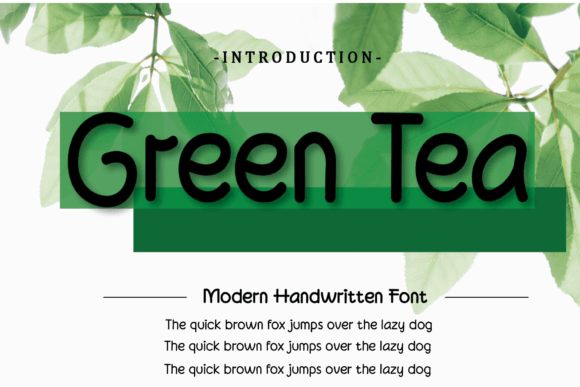
Step into a world of charm and elegance with Green Tea Font, a mesmerizing script font family that will transform your creative visions into captivating realities. Designed by the talented handwrittenwanda, this font exudes simplicity, cuteness, and a dash of modernity, making it the perfect choice for a myriad of design projects.
Picture the allure of your wedding invitations, adorned with the delicate strokes of Green Tea. Its graceful curves and whimsical charm will set the tone for an unforgettable celebration, leaving a lasting impression on your guests. The font's versatility extends to business cards, where its sophisticated style adds a touch of professionalism and uniqueness to your personal brand.
Envision your logos and product packaging adorned with the distinctive charm of Green Tea. Its cheerful and inviting appearance will grab attention and create a strong connection with your customers. Unleash your creativity and craft eye-catching advertisements that demand attention and leave a lasting impact on your target audience.
Quotes and other design elements come alive when paired with Green Tea Font. Its ability to evoke emotions and convey messages in a visually stunning manner makes it an ideal choice for designers seeking to create impactful and memorable designs.
Green Tea Font is not just a font; it's an artistic expression that adds a touch of delight and personality to your creations. Its ability to transform ordinary designs into captivating masterpieces makes it a must-have for designers seeking to leave a lasting impression.
Let Green Tea Font be your creative companion and watch as your designs bloom with a newfound charm and elegance. Download it today and embark on a creative journey like never before. Discover the limitless possibilities that await you with Green Tea Font.